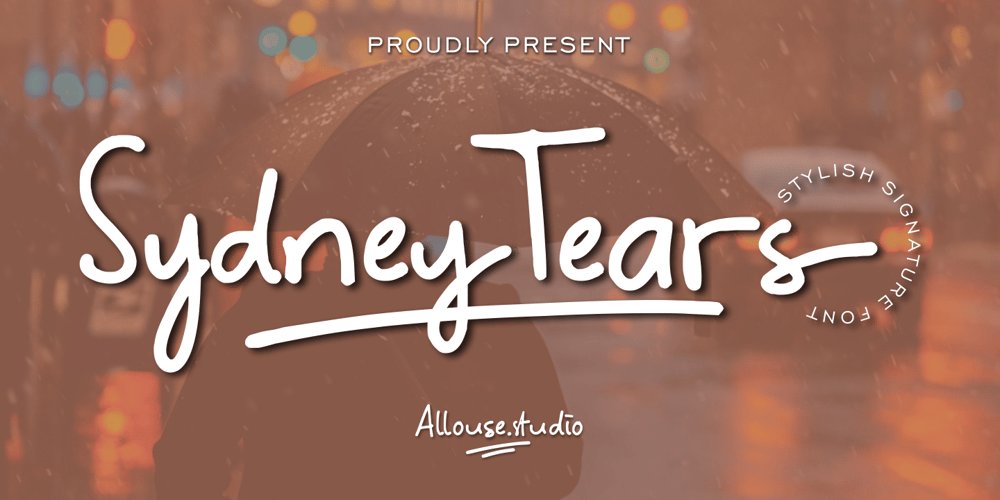
Sydney Tears
Sydney Tears font
Sydney Tears Font Family was designed by Fachrizal Yusuf and published by Allouse Studio. Sydney Tears contains 1 styles and family package options. Proudly Presenting, Sydney Tears a Stylish Signature Font.Sydney Tears come with Swash, Underline Styles, and Multi-Lingual SUpport to fulfill your need.We highly recommend using a program that supports OpenType features and Glyphs panels like many of Adobe apps and Corel Draw, so you can see and access all Glyph variations.Sydney Tears is perfect for any tittle, logo, product packaging, branding project, megazine, social media, wedding, or just used to express words above the background.Enjoy the font, feel free to comment or feedback, send me PM or email. Thank You!